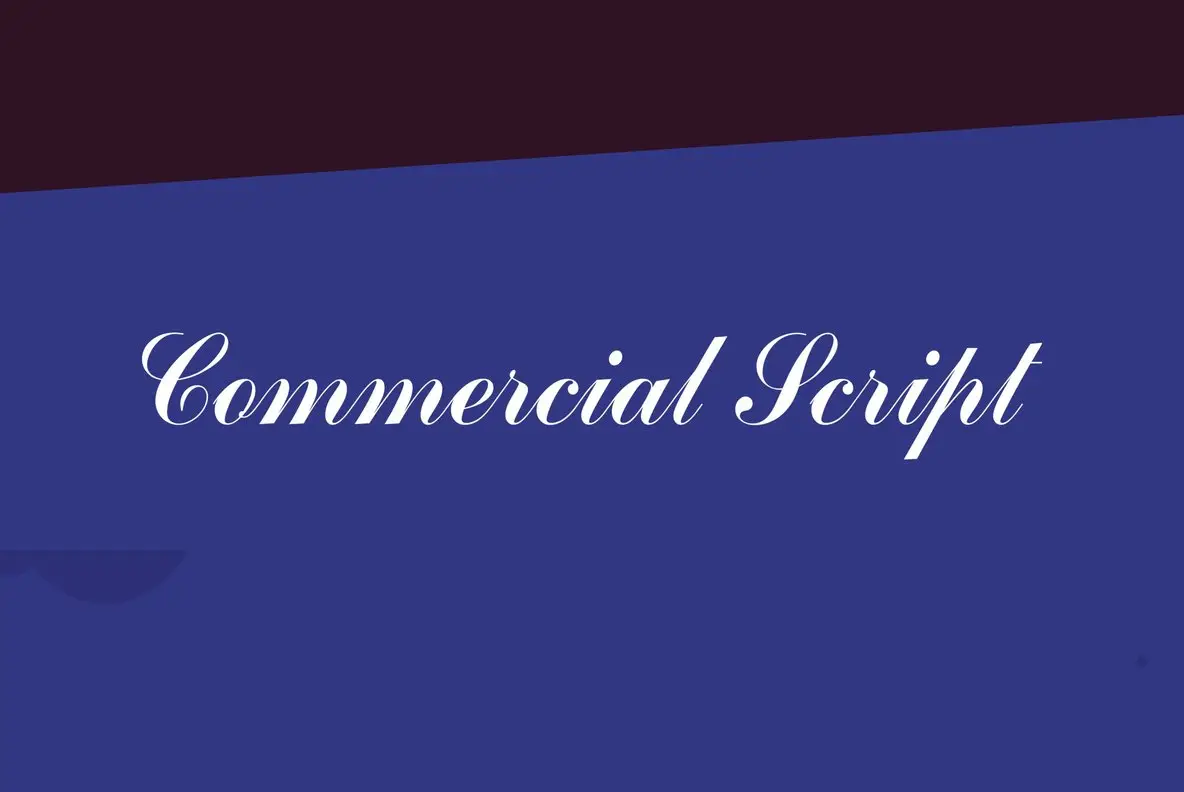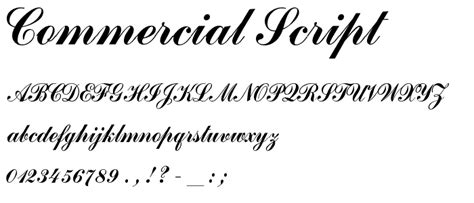
Commercial Script Font . Script fonts can be elegant or edgy, bold or delicate. Web explore commercial script mn available at adobe fonts.
Script fonts can be elegant or edgy, bold or delicate. Web script fonts are one of the most versatile font categories in the design world. A script typeface with 1 style, available from adobe fonts for sync and web use.
Web explore commercial script mn available at adobe fonts. Script fonts can be elegant or edgy, bold or delicate. Use the commercial script font in advertising, invitations, greeting cards,. Web explore commercial script mn available at adobe fonts.
Commercial Script Font - When choosing a script font, think of what. Adobe fonts is the easiest way to. Web script fonts are one of the most versatile font categories in the design world. 301,541 downloads (4 yesterday) 8 comments. A script typeface with 1 style, available from adobe fonts for sync and web use.
Commercial Script Font - Use the commercial script font in advertising, invitations, greeting cards,. Web explore commercial script mn available at adobe fonts. When choosing a script font, think of what. Web script fonts are one of the most versatile font categories in the design world. 301,541 downloads (4 yesterday) 8 comments.
Commercial Script Font - Web explore commercial script mn available at adobe fonts. Web commercial script is an elegant connecting alphabet based on formal handwriting. Script fonts can be elegant or edgy, bold or delicate. When choosing a script font, think of what. Use the commercial script font in advertising, invitations, greeting cards,.
Commercial Script Font - Web script fonts are one of the most versatile font categories in the design world. Web explore commercial script mn available at adobe fonts. 301,541 downloads (4 yesterday) 8 comments. Use the commercial script font in advertising, invitations, greeting cards,. Adobe fonts is the easiest way to.
Commercial Script Font - 301,541 downloads (4 yesterday) 8 comments. Web script fonts are one of the most versatile font categories in the design world. Script fonts can be elegant or edgy, bold or delicate. Web commercial script is an elegant connecting alphabet based on formal handwriting. A script typeface with 1 style, available from adobe fonts for sync and web use.
Commercial Script Font - When choosing a script font, think of what. Script fonts can be elegant or edgy, bold or delicate. Web script fonts are one of the most versatile font categories in the design world. 301,541 downloads (4 yesterday) 8 comments. A script typeface with 1 style, available from adobe fonts for sync and web use.
Commercial Script Font - Use the commercial script font in advertising, invitations, greeting cards,. A script typeface with 1 style, available from adobe fonts for sync and web use. Script fonts can be elegant or edgy, bold or delicate. Web script fonts are one of the most versatile font categories in the design world. Web commercial script is an elegant connecting alphabet based on.
Commercial Script Font - When choosing a script font, think of what. Use the commercial script font in advertising, invitations, greeting cards,. A script typeface with 1 style, available from adobe fonts for sync and web use. Web commercial script is an elegant connecting alphabet based on formal handwriting. Adobe fonts is the easiest way to.
Commercial Script Font - Adobe fonts is the easiest way to. Web explore commercial script mn available at adobe fonts. Use the commercial script font in advertising, invitations, greeting cards,. Web script fonts are one of the most versatile font categories in the design world. 301,541 downloads (4 yesterday) 8 comments.
Commercial Script Font - Web commercial script is an elegant connecting alphabet based on formal handwriting. When choosing a script font, think of what. Web script fonts are one of the most versatile font categories in the design world. Script fonts can be elegant or edgy, bold or delicate. Use the commercial script font in advertising, invitations, greeting cards,.
Commercial Script Font - Use the commercial script font in advertising, invitations, greeting cards,. 301,541 downloads (4 yesterday) 8 comments. Web commercial script is an elegant connecting alphabet based on formal handwriting. When choosing a script font, think of what. Web explore commercial script mn available at adobe fonts.
Commercial Script Font - Use the commercial script font in advertising, invitations, greeting cards,. 301,541 downloads (4 yesterday) 8 comments. Web script fonts are one of the most versatile font categories in the design world. Web explore commercial script mn available at adobe fonts. Web commercial script is an elegant connecting alphabet based on formal handwriting.
Commercial Script Font - 301,541 downloads (4 yesterday) 8 comments. Adobe fonts is the easiest way to. Use the commercial script font in advertising, invitations, greeting cards,. A script typeface with 1 style, available from adobe fonts for sync and web use. Web commercial script is an elegant connecting alphabet based on formal handwriting.